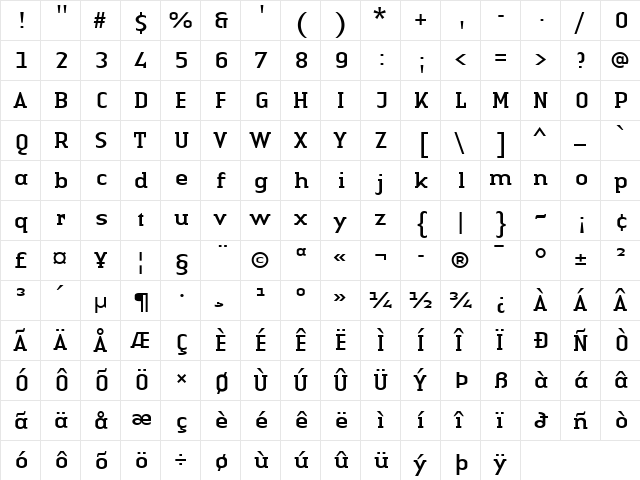
LTAuthenticSerif Regular
Design Context for LTAuthenticSerif Typeface
LTAuthenticSerif carries the refined structure of traditional serif typography, with bracketed terminals and considered proportions that communicate credibility and craft.
Pro Tip: Use LTAuthenticSerif for editorial body copy and considered headline work. Pair with a neutral sans for UI elements or captions to create a classic hierarchy.